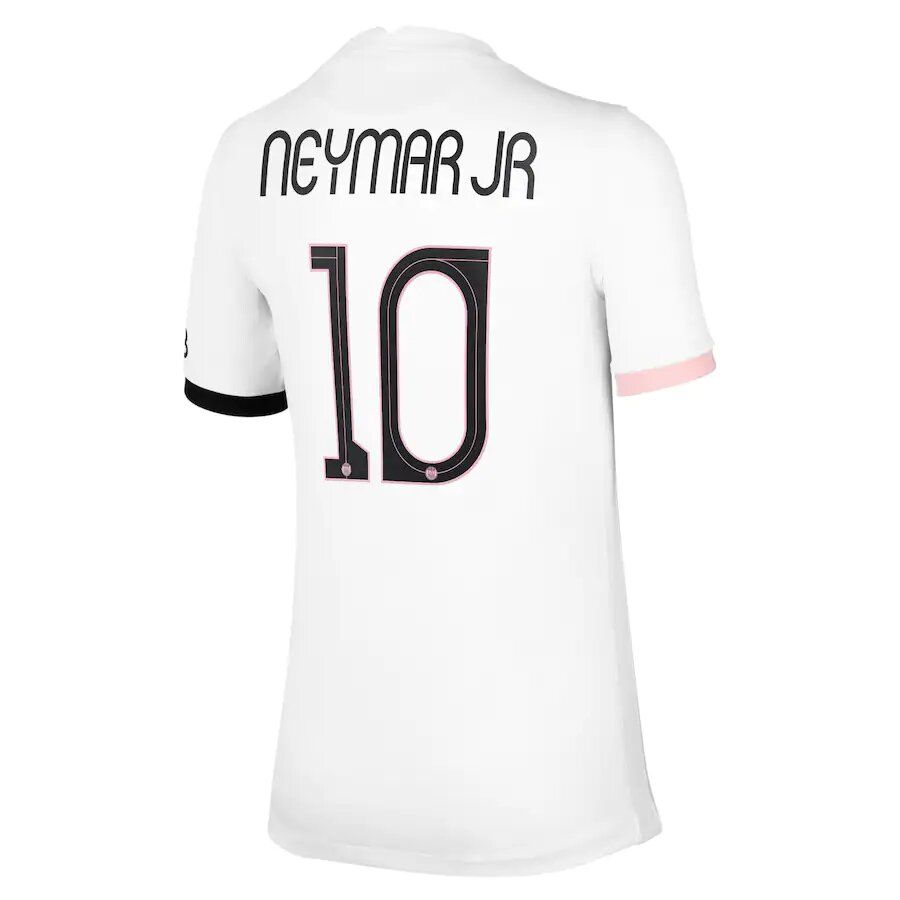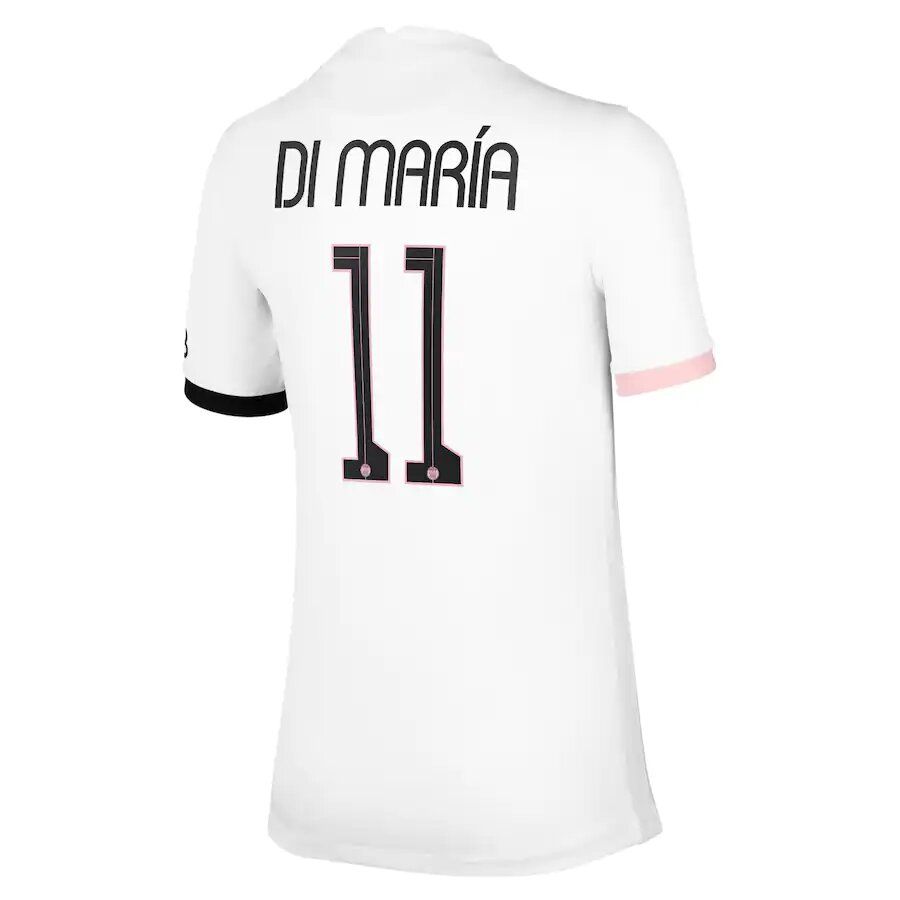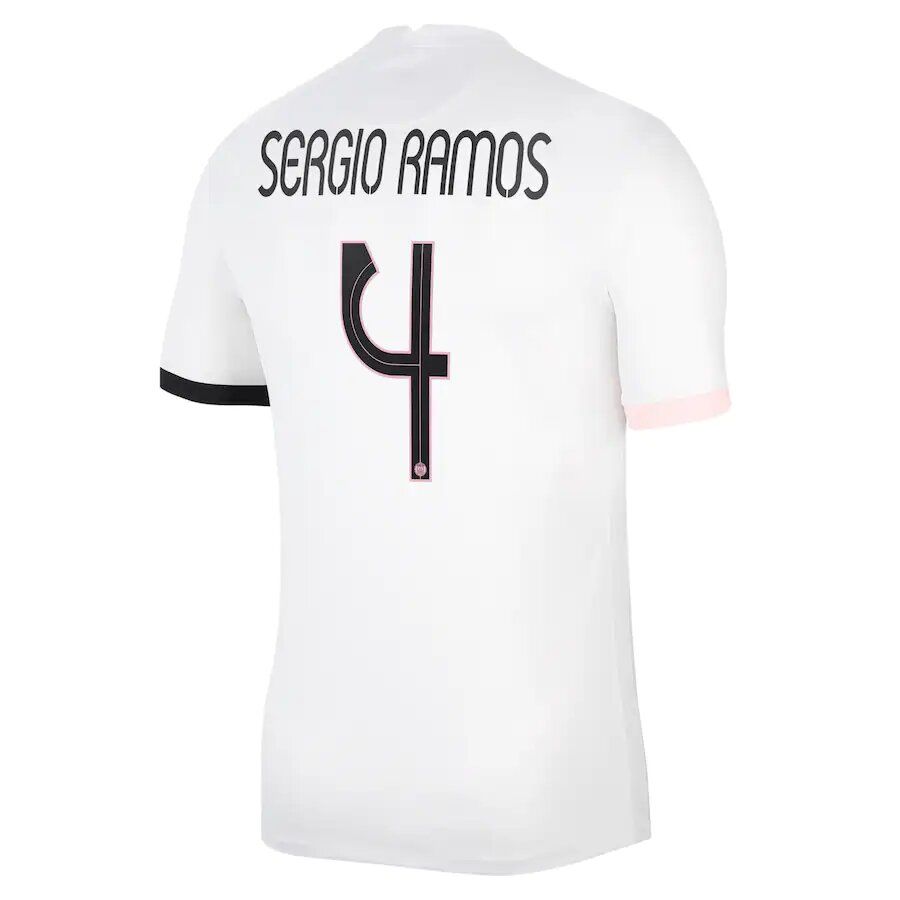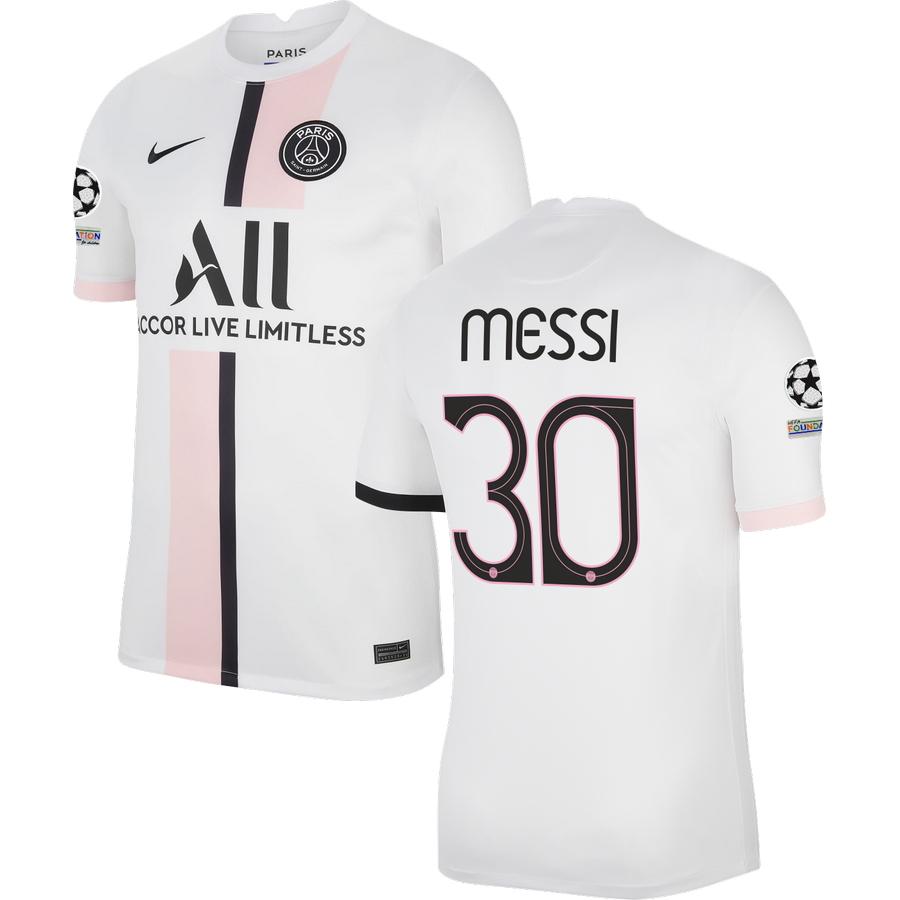
Paris Saint-Germain 21-22 away kit released, with a new set of exclusive fonts, will be used in the next season of the Champions League.
PSG 21-22 AWAY CHAMPIONS LEAGUE FONT
The numbers are black with pink lines running trough the center as well as a pink border, with the PSG crest sitting at the bottom.